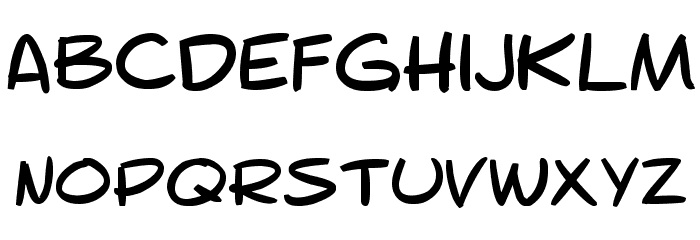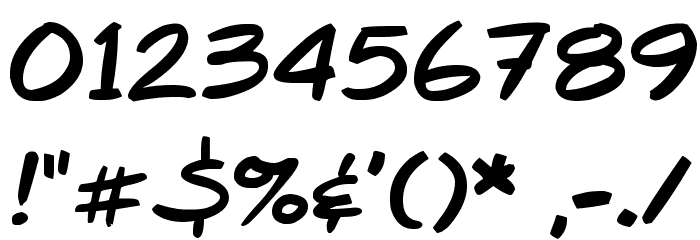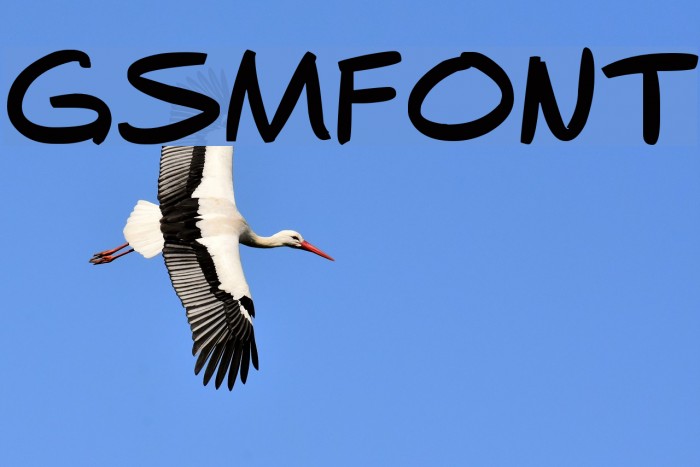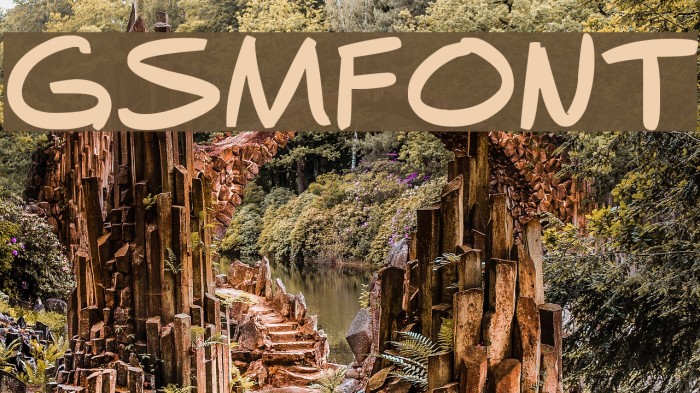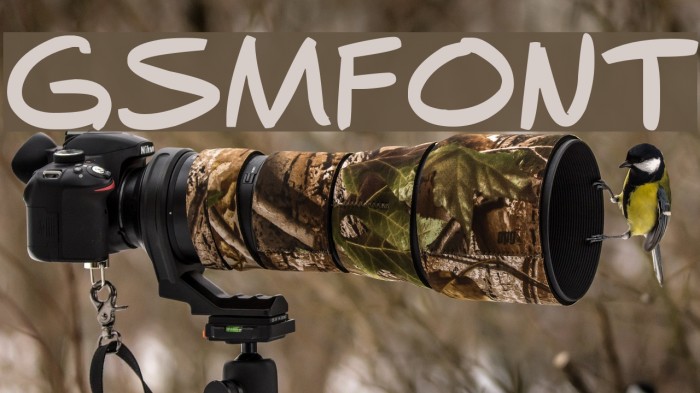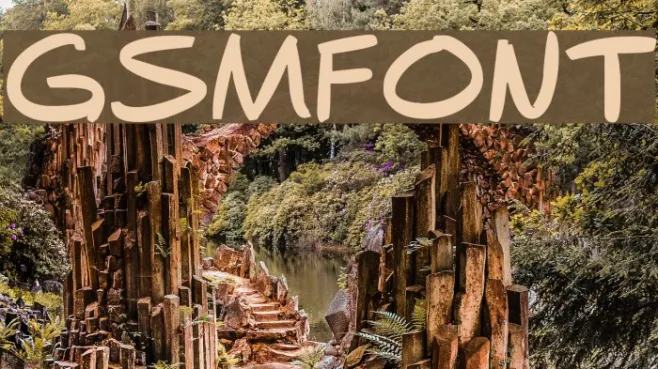
gsmfont
This font features a playful and informal style with a handwritten appearance. The characters are bold and slightly tilted, giving a dynamic and energetic feel. The strokes are consistent in thickness, providing a uniform look across all characters. The letters are well-spaced, ensuring readability while maintaining a casual vibe. The numbers and special characters follow the same style, making them cohesive with the alphabet. This font is ideal for projects that require a friendly and approachable tone.
A playful, handwritten-style font with bold, slightly tilted characters.
- Proposed Projects: Great for children's books, casual invitations, comic strips, and playful branding.
- Overall Style: Casual
- Use Case: Headlines, Logos, Informal Text